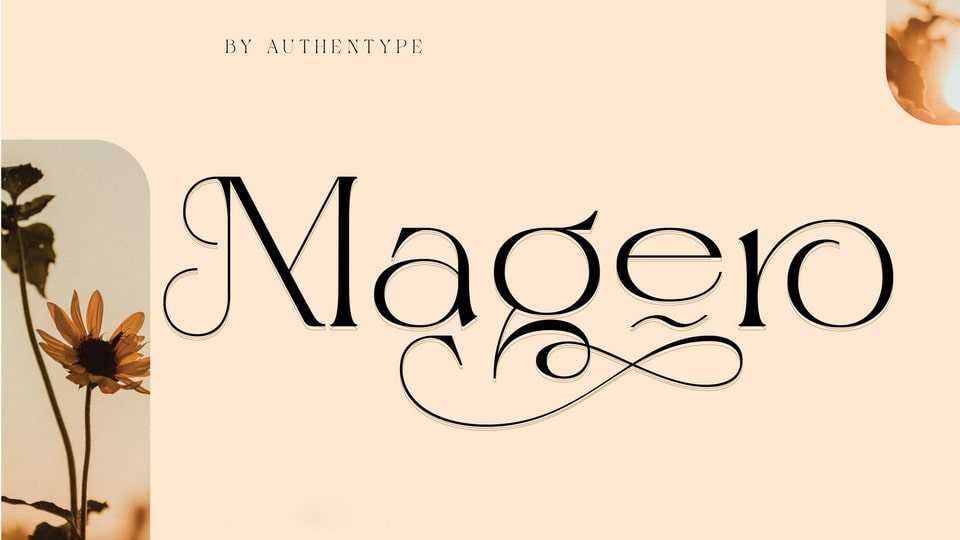
Download Magero font, an elegant serif typeface with discretionary ligatures that give each word a different shape. Magero is perfect for logo designs, posters, and various types of promotional media.
Designer: Authentype